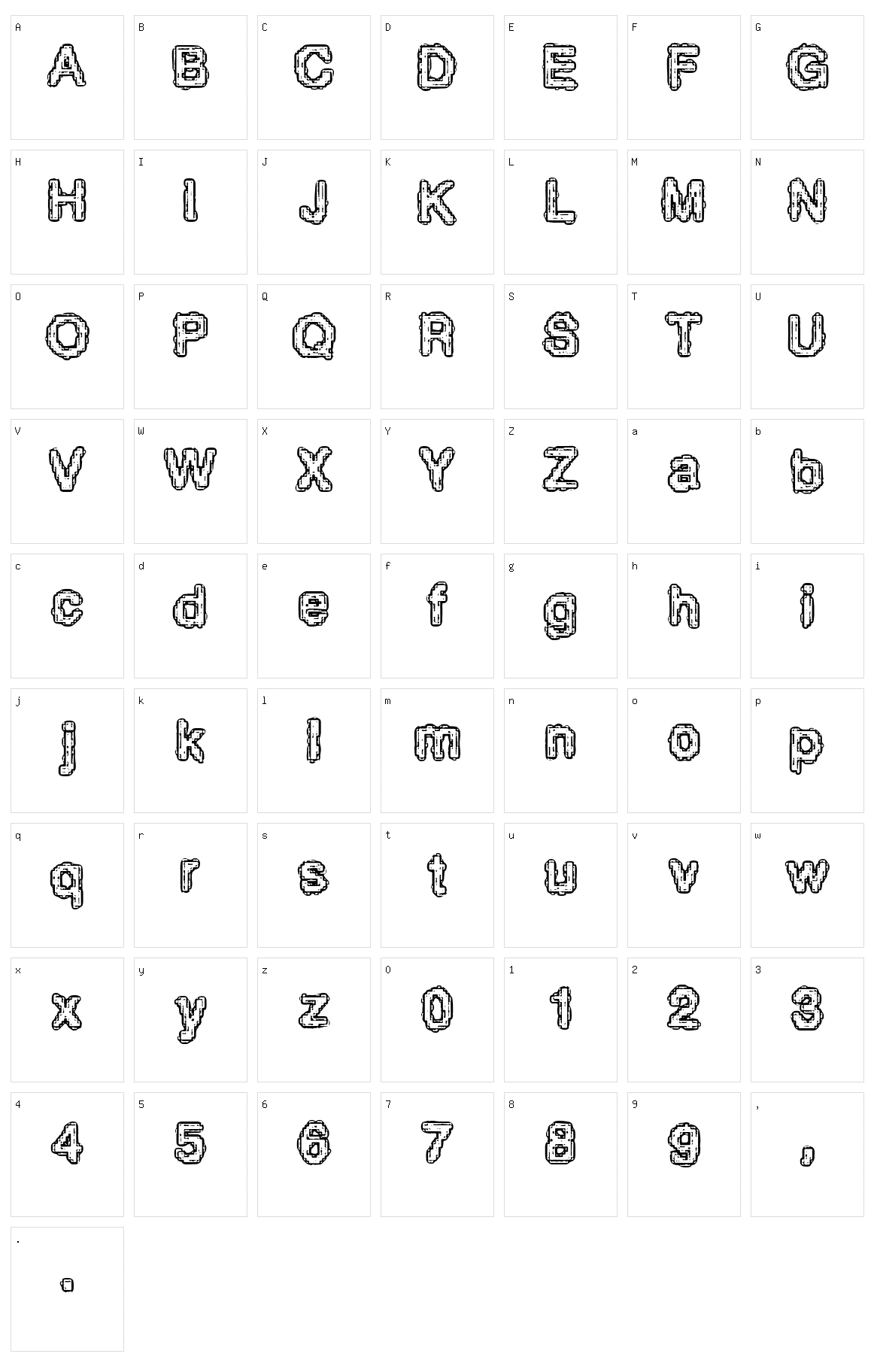
The free font Pixel Krud is carefully designed by Ænigma, showcasing a thoughtful balance of creativity and usability and falls under the Distorted font style. When you download the ZIP file, it contains only 108.48 KB of font files, making it lightweight and quick to download. Please review the license details below to understand permitted usage and distribution rights. If license information is not available, we recommend using this font for personal projects only or contacting the author directly for commercial usage permissions.
Pixel Krud Created by Brian Kent